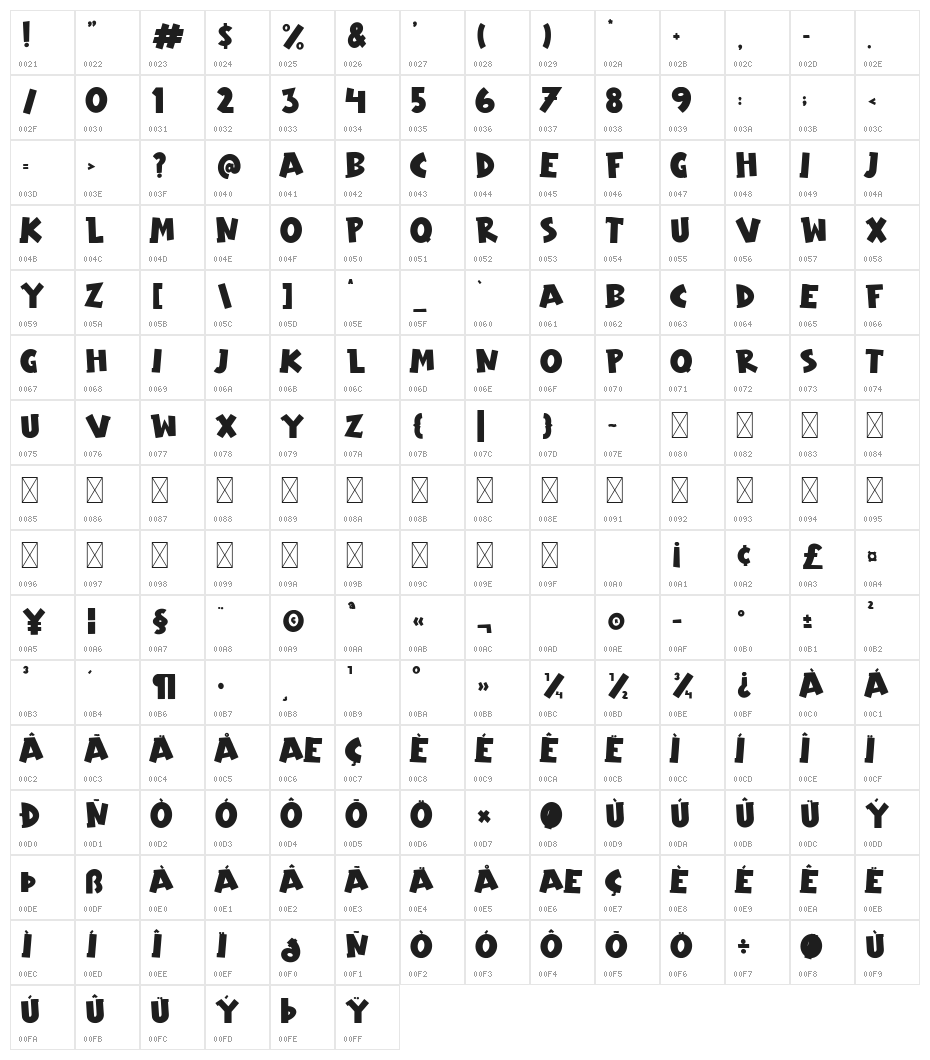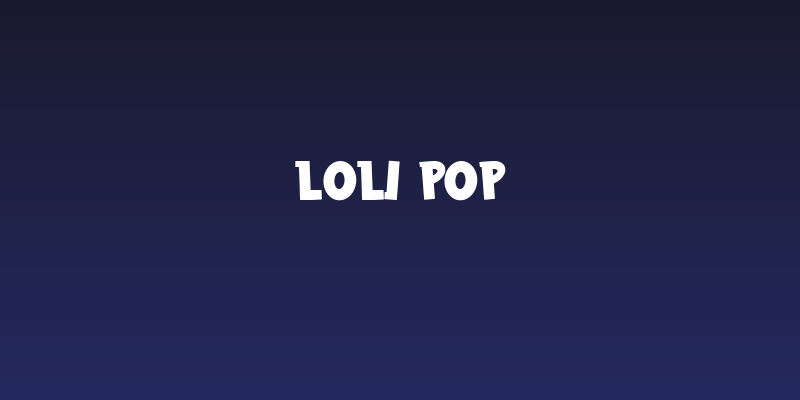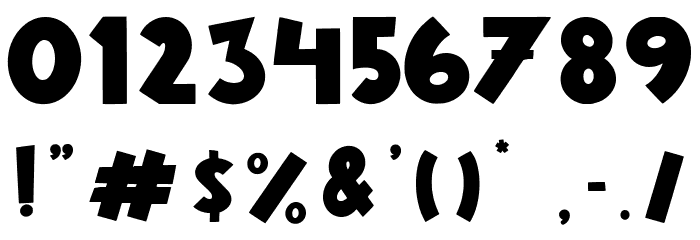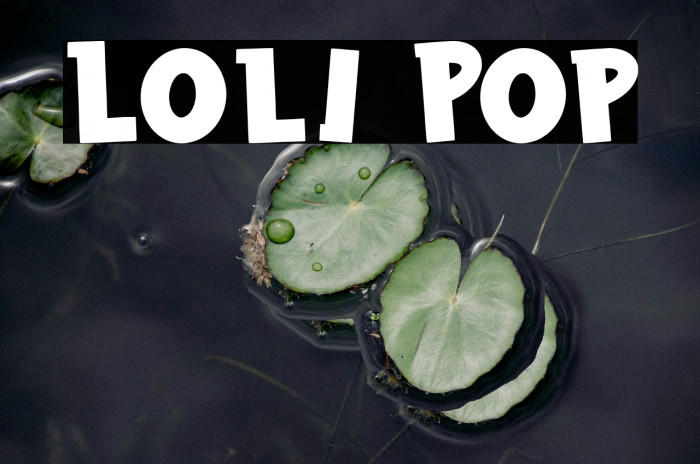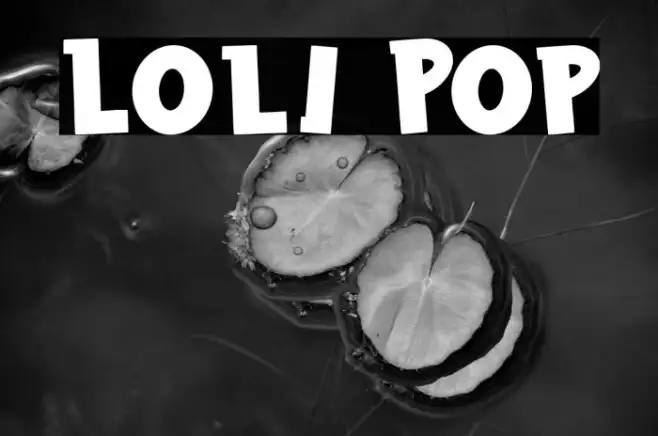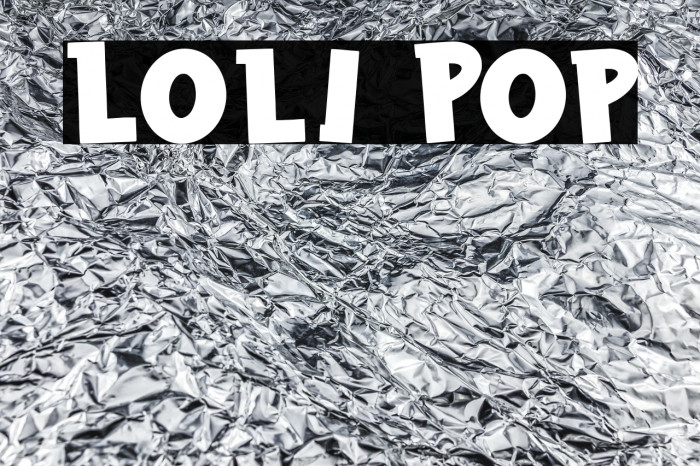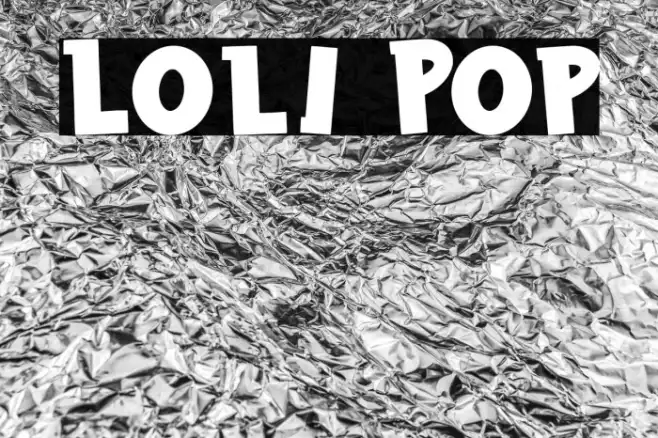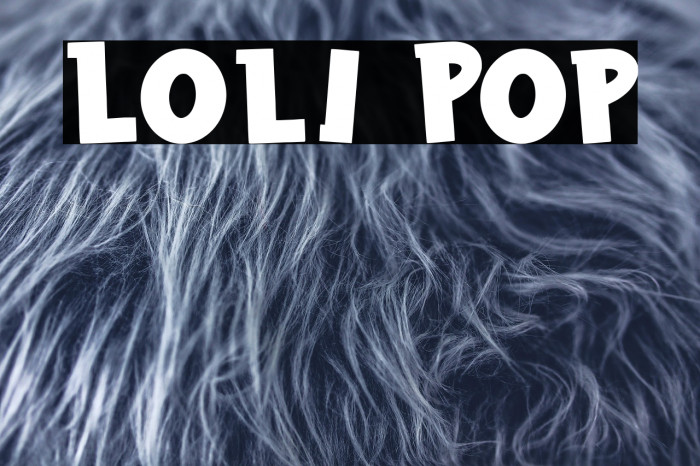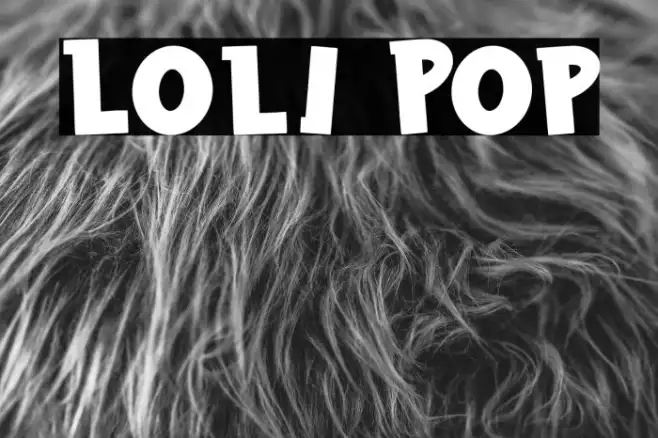
Loli Pop Font
Loli Pop Description
This playful and bold font features thick, rounded characters that exude a sense of fun and whimsy. The letters are slightly irregular, giving them a hand-drawn appearance that adds to their charm. The font's boldness ensures high visibility, making it ideal for attention-grabbing designs. Its rounded edges and playful style make it suitable for projects aimed at children or for any design that requires a lighthearted and cheerful touch. The numbers and special characters maintain the same playful style, ensuring consistency across different types of content.
| Proposed Projects | Ideal for children's books, playful branding, party invitations, and casual posters. |